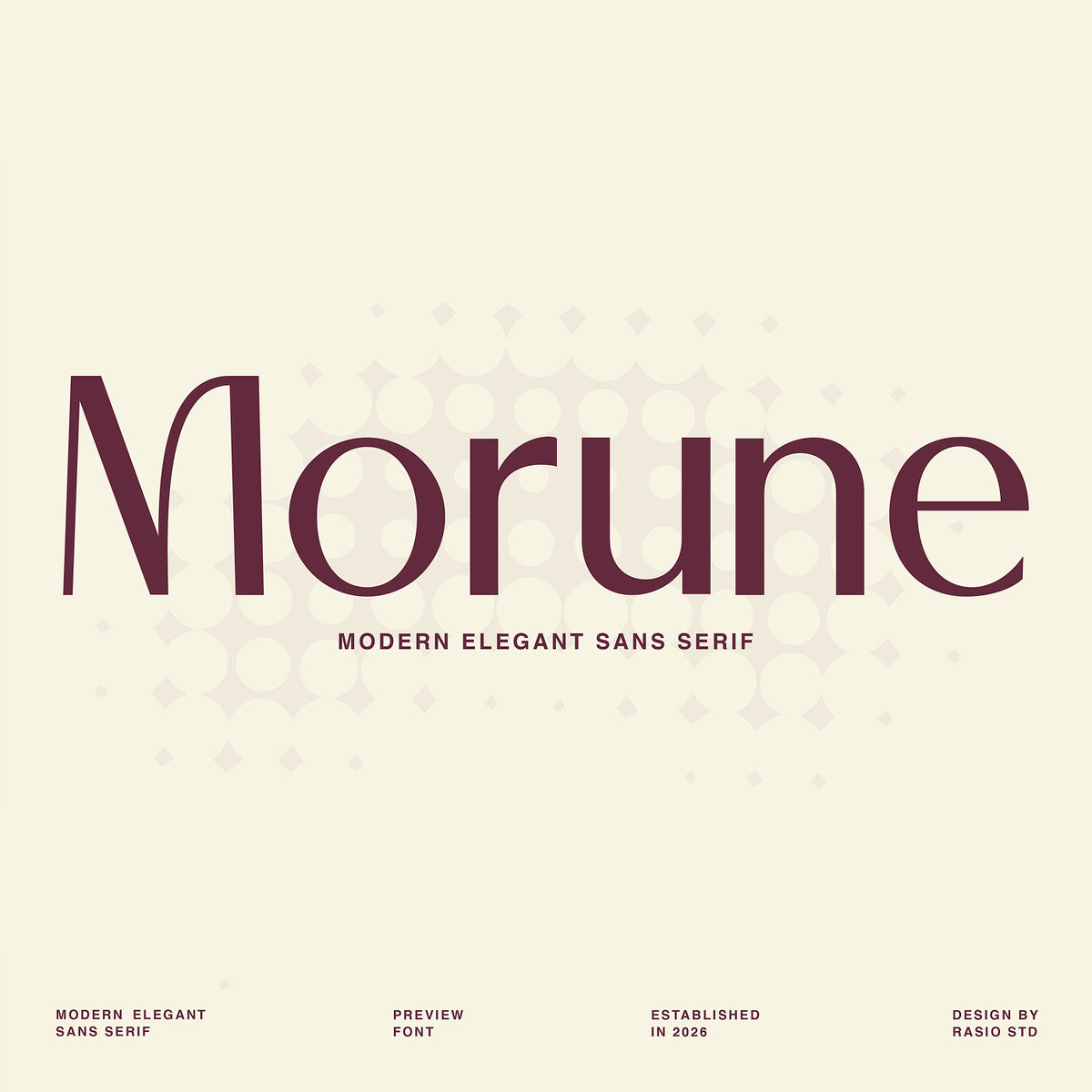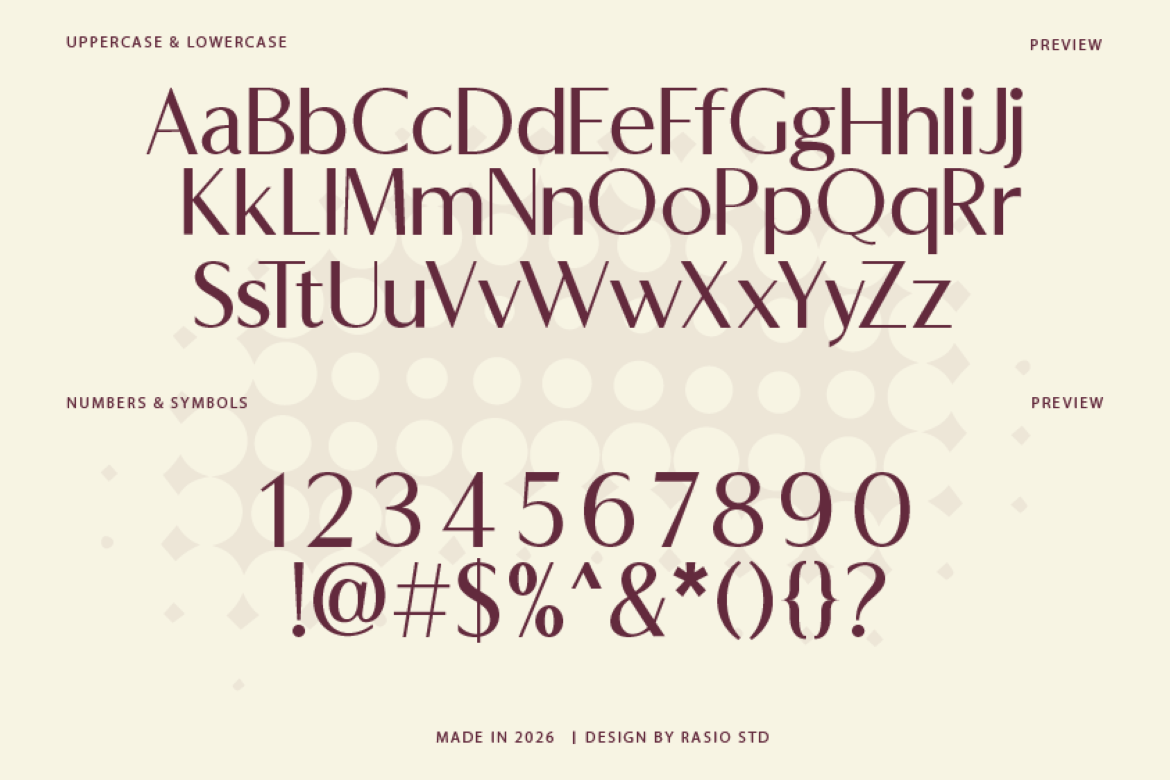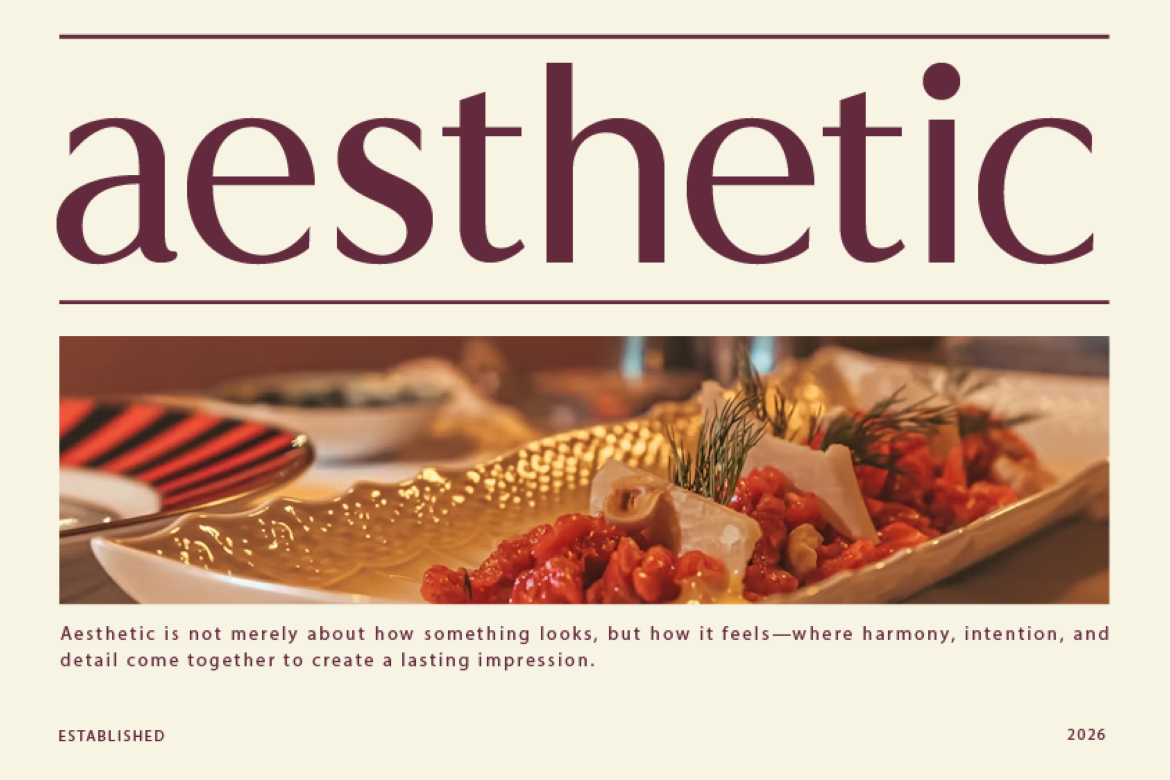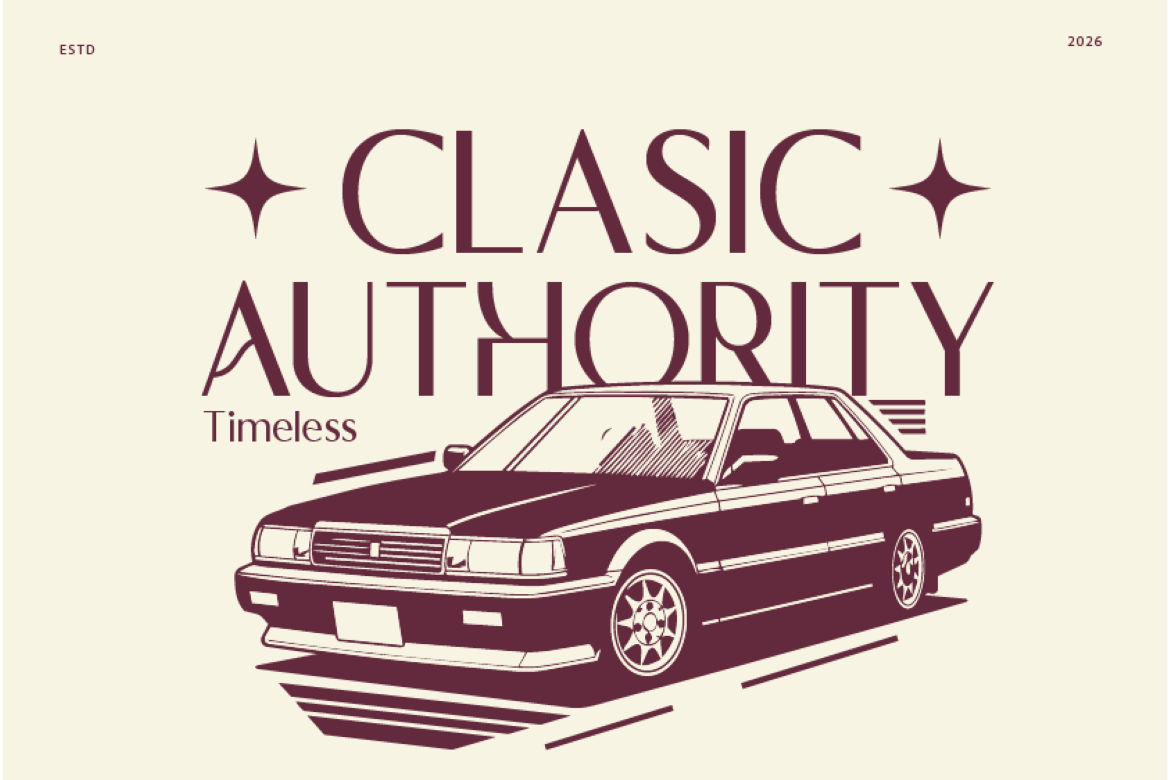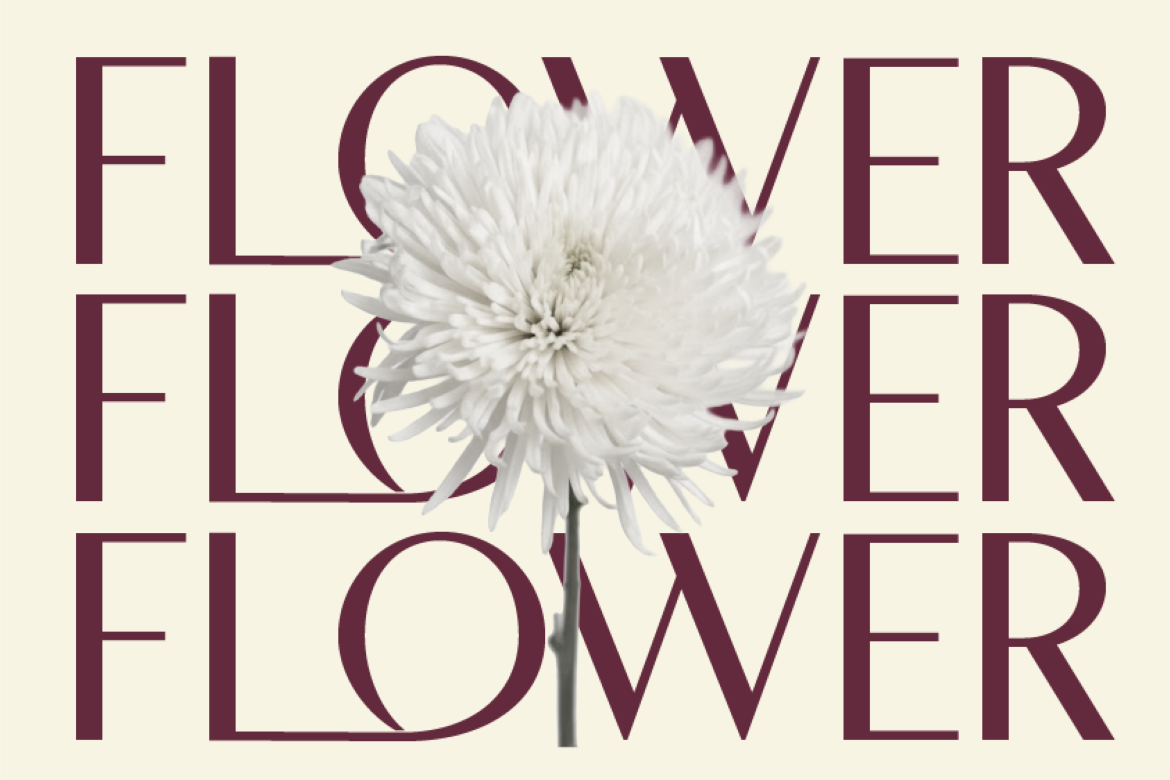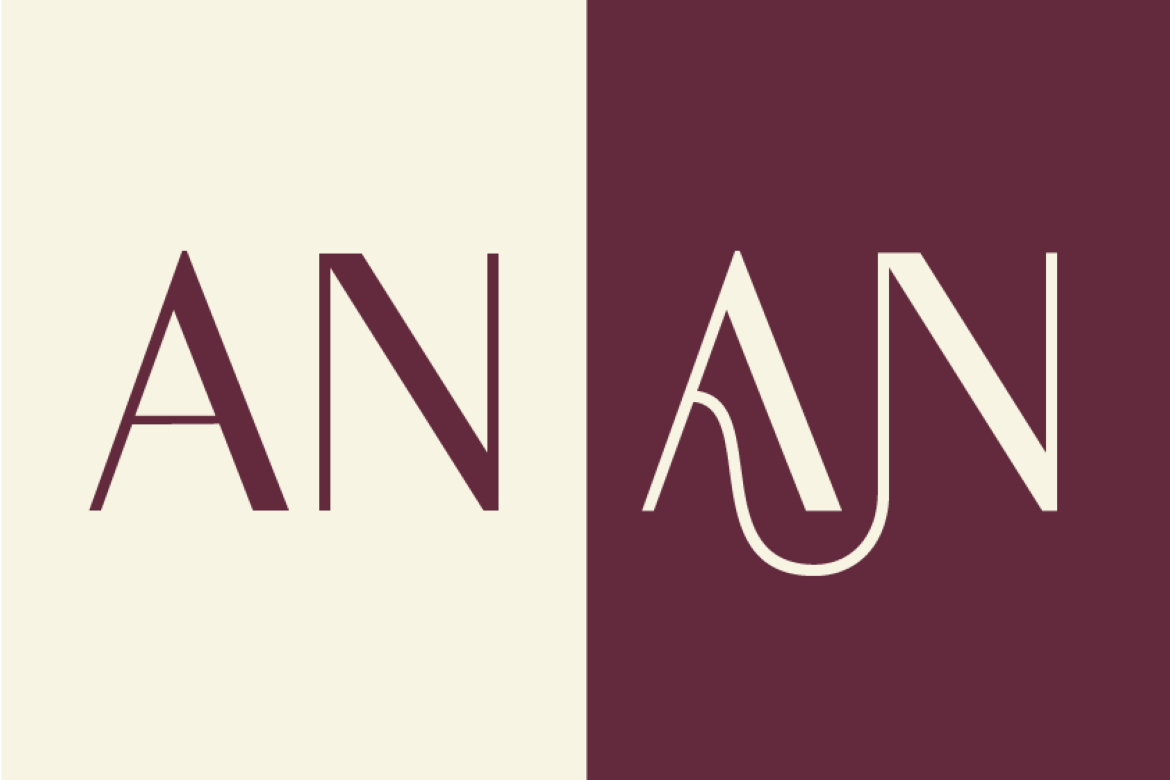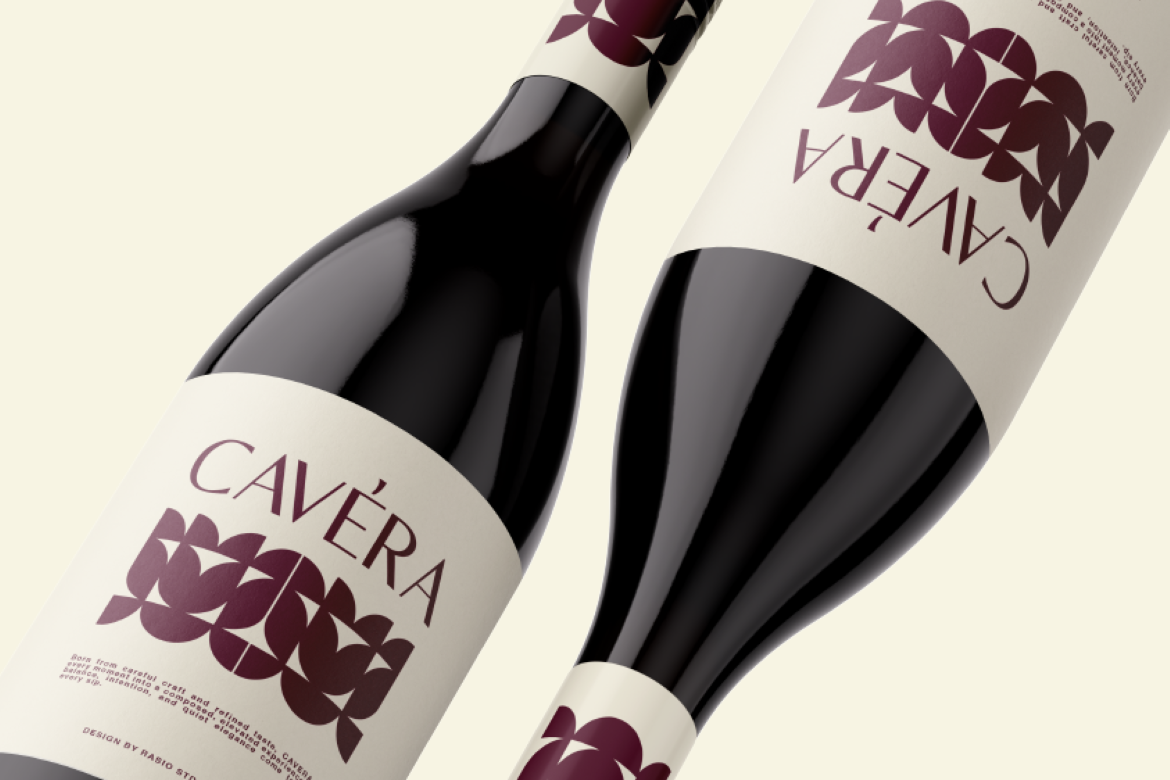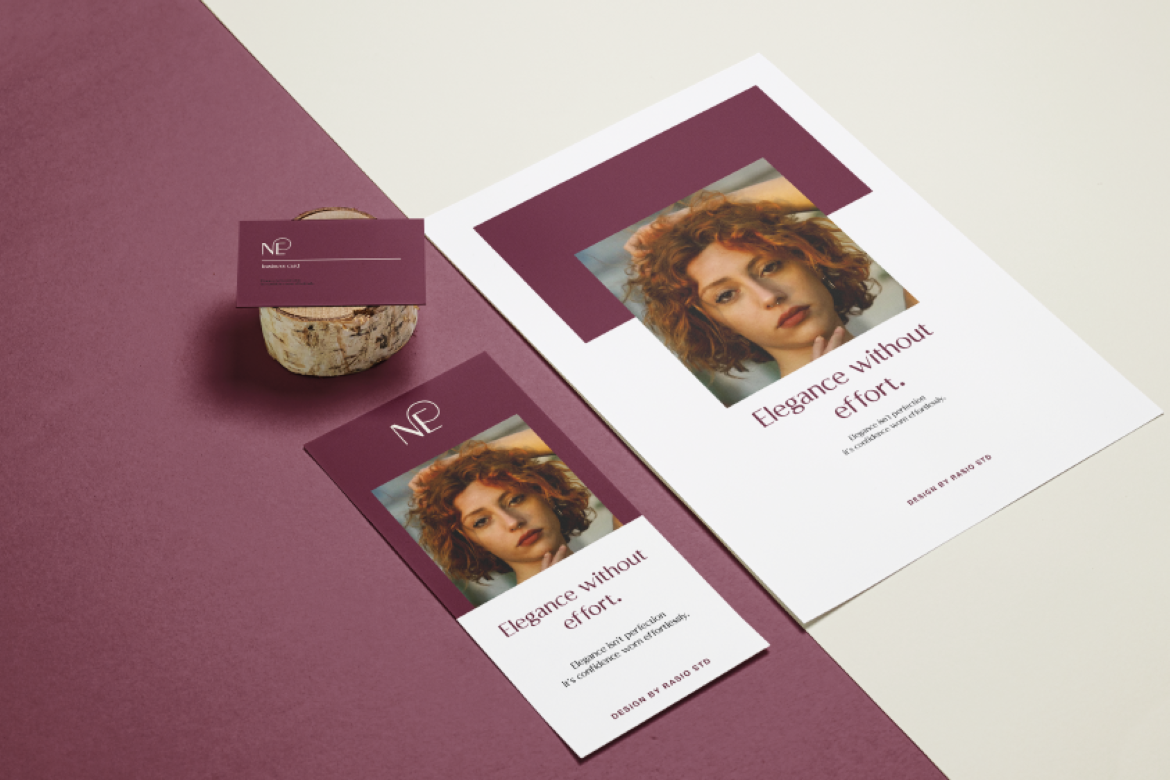
Morune Modern Elegant Sans Serif Font
Morune is a refined modern sans serif typeface that brings together minimalism and elegance in perfect balance. Designed with subtle high-contrast strokes and distinctive letterform variations, Morune creates a sophisticated visual rhythm suitable for branding, editorial, and upscale design. The font includes uppercase and lowercase letters, numerals, punctuation. Morune is especially ideal for luxury branding, fashion lookbooks, product packaging, and aesthetic-driven layouts that require a clean yet expressive tone.
Relevance and Use Cases is perfect for designers looking to elevate their branding or editorial projects with a font that feels premium yet modern. Whether for high-end fashion, hospitality menus, personal branding, or design portfolios, Morune blends professional clarity with artistic finesse making it ideal for both digital and print use.
• Ligatures Support
Morune is a sans serif typeface featuring high-contrast strokes and varied letterforms, including uppercase and lowercase letters, numerals, punctuation, and ligature support. It is available in OTF, TTF, and WOFF formats.